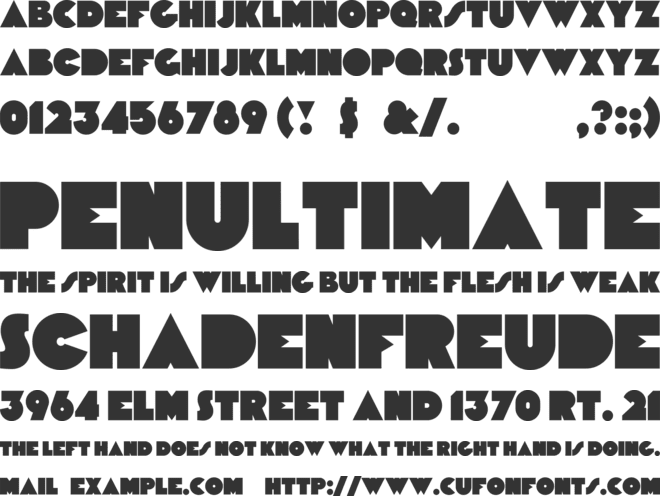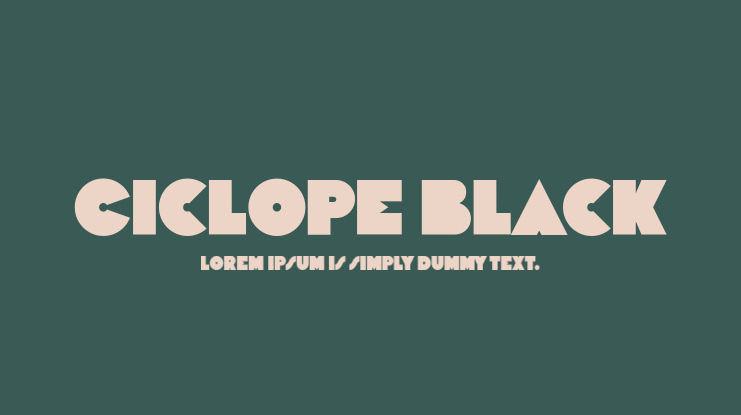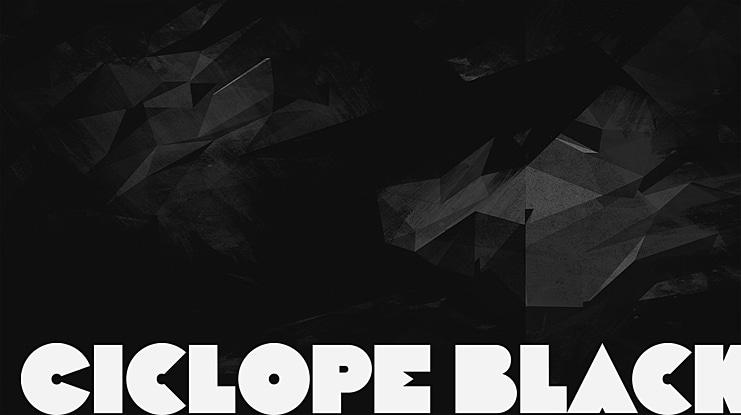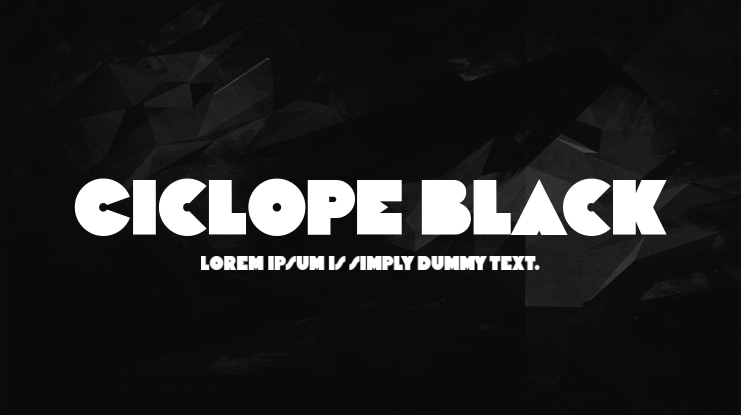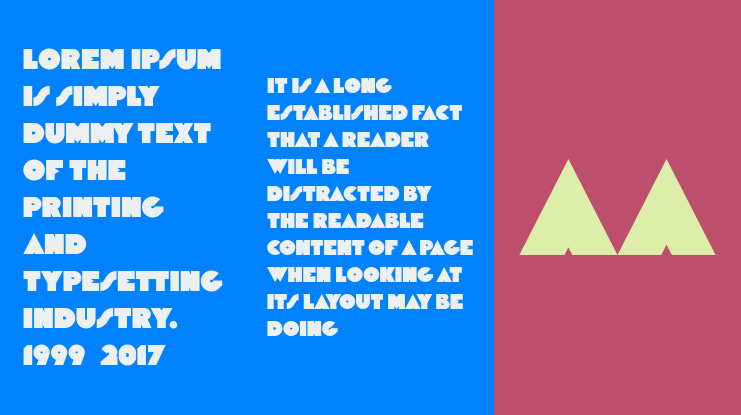
Ciclope Black Font Family
Claudio Rocha, Lucas Franco
Ciclope metal type was launched in the 1930s by the Fonderia Tipografica Reggiani, a type foundry based in Milan, under the guidance of the modernist typographer Guido Modiano.
Ciclope has a strong and bold look, characteristic of the Italian art deco style. The NowType font family has three styles: Black, Black Rounded and Black Outline, which are interchangeable.
By Lucas Franco & Claudio Rocha, 2018